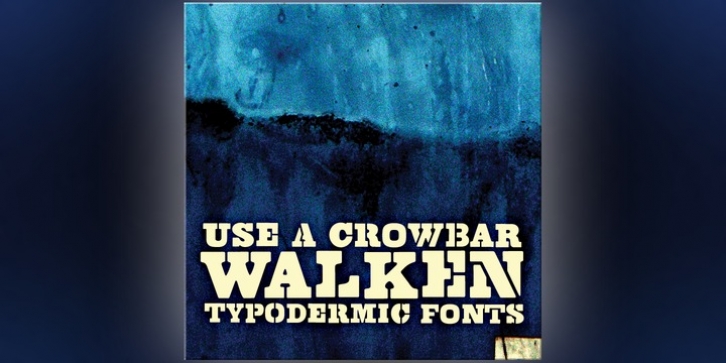
Ray Larabie
Typodermic
Walken
is a sure-footed slab serif font family.
A stencil font, you ask? Sometimes . . . maybe . . . maybe you should stop asking so many questions.